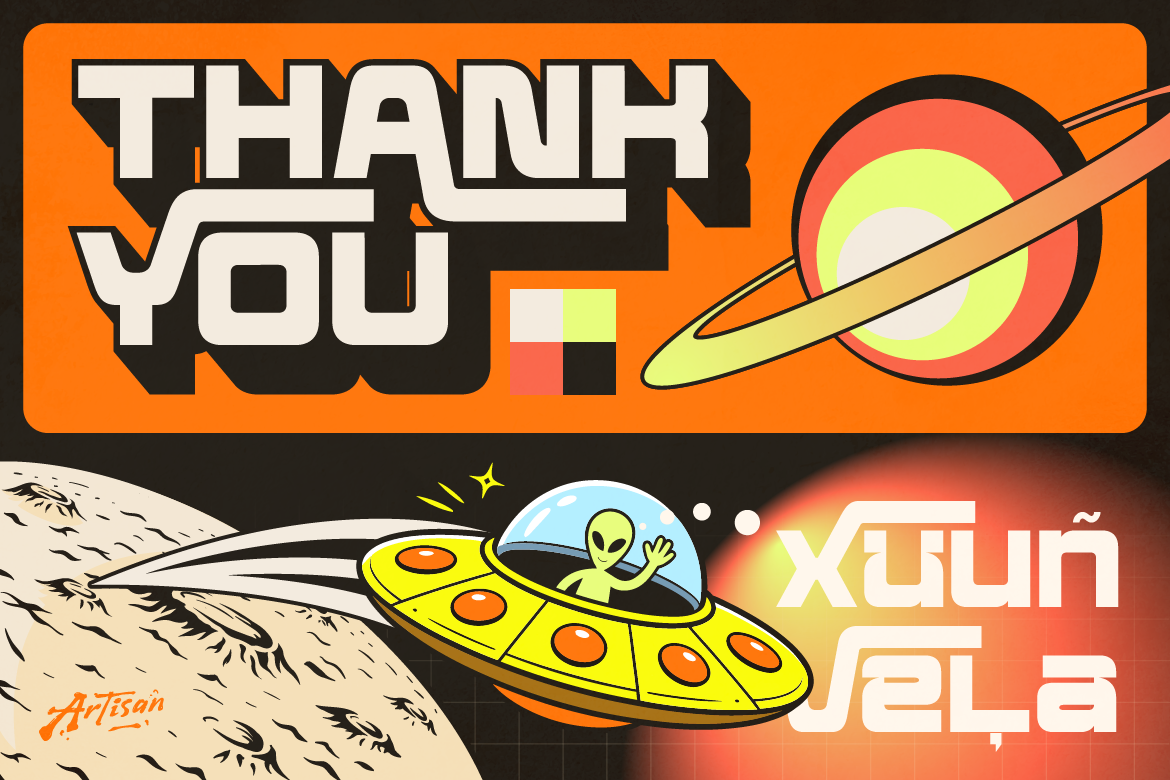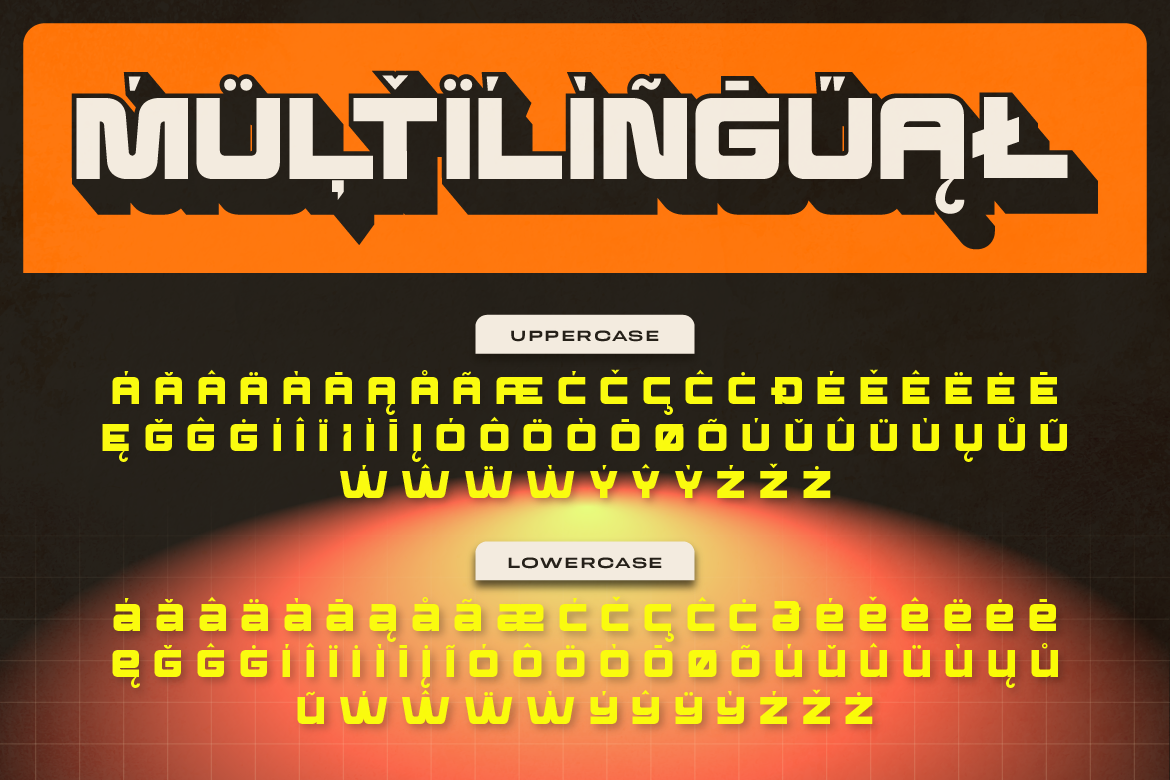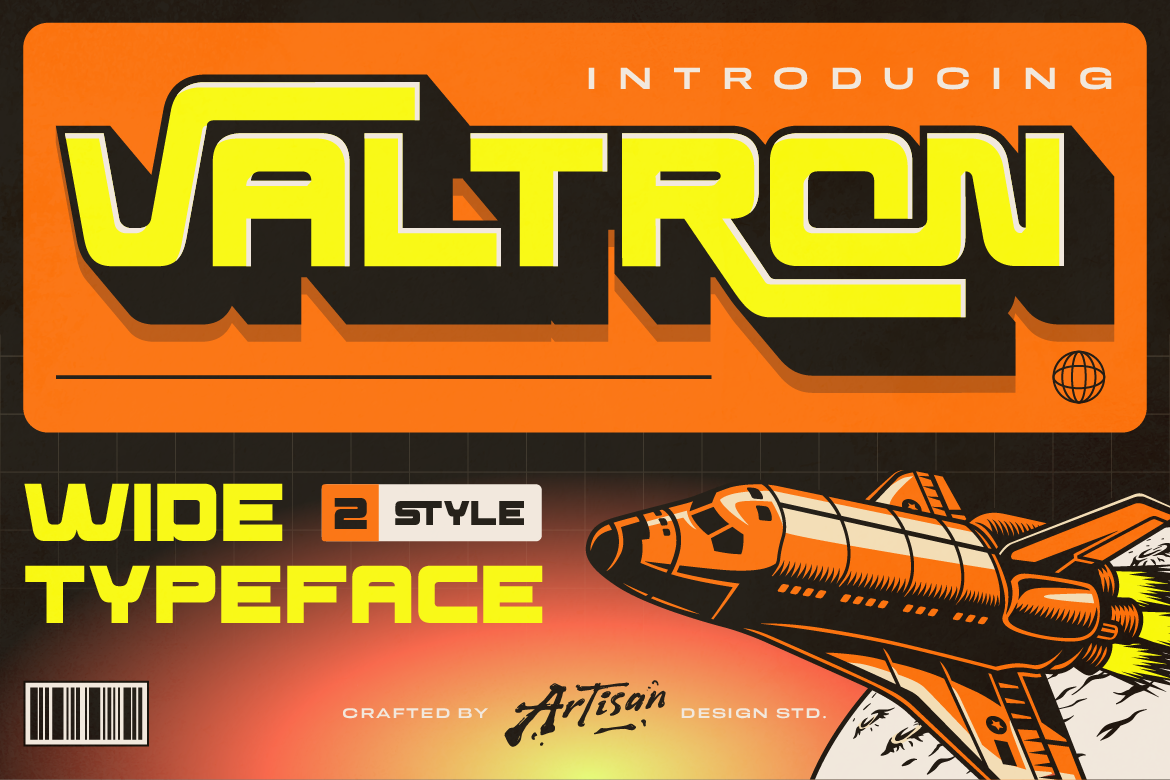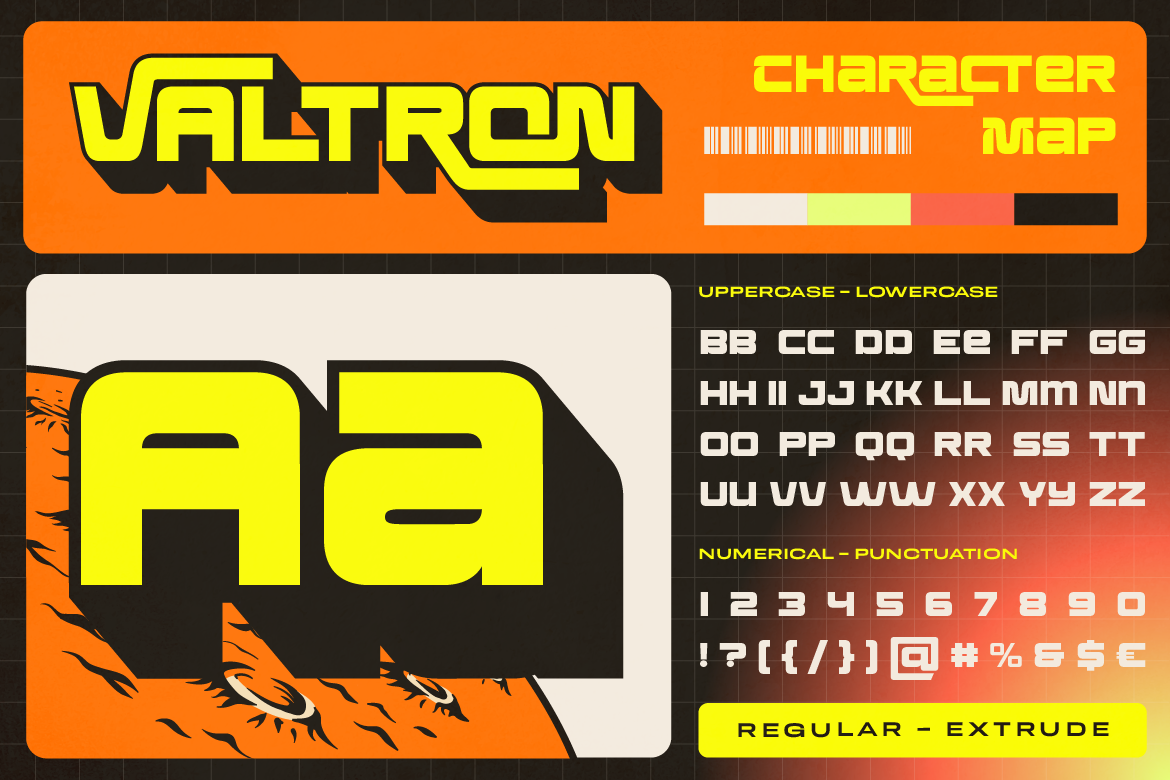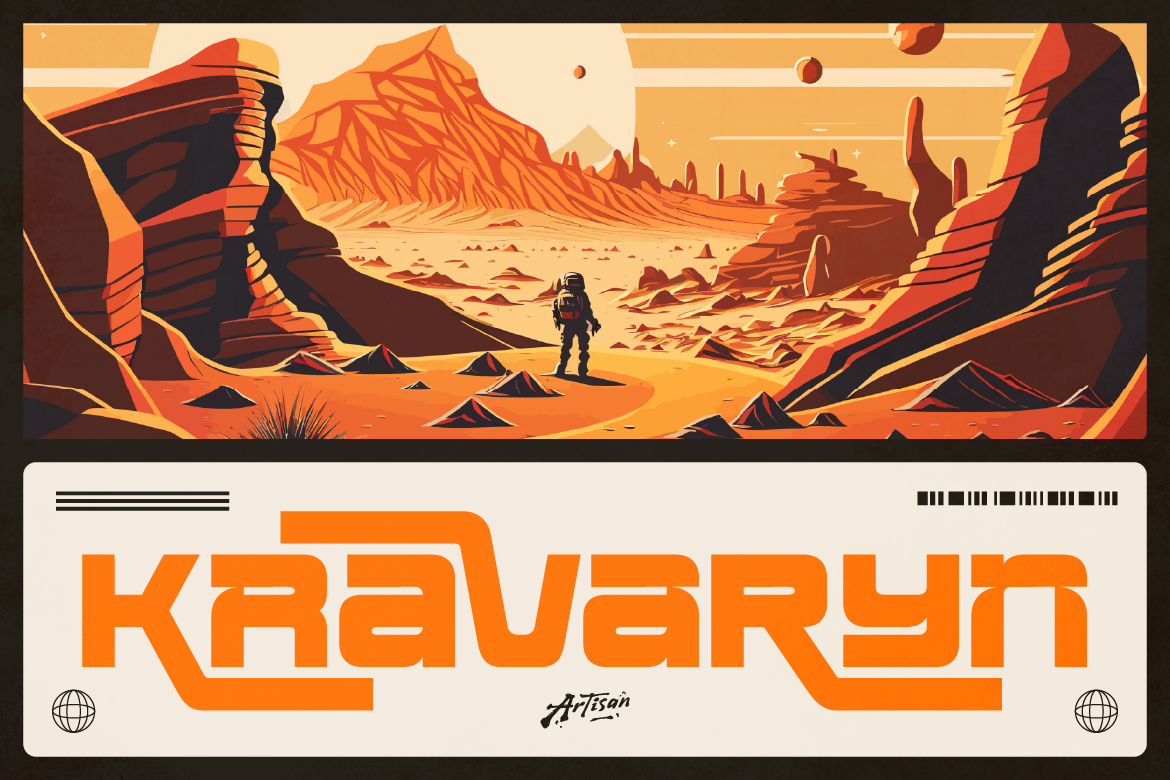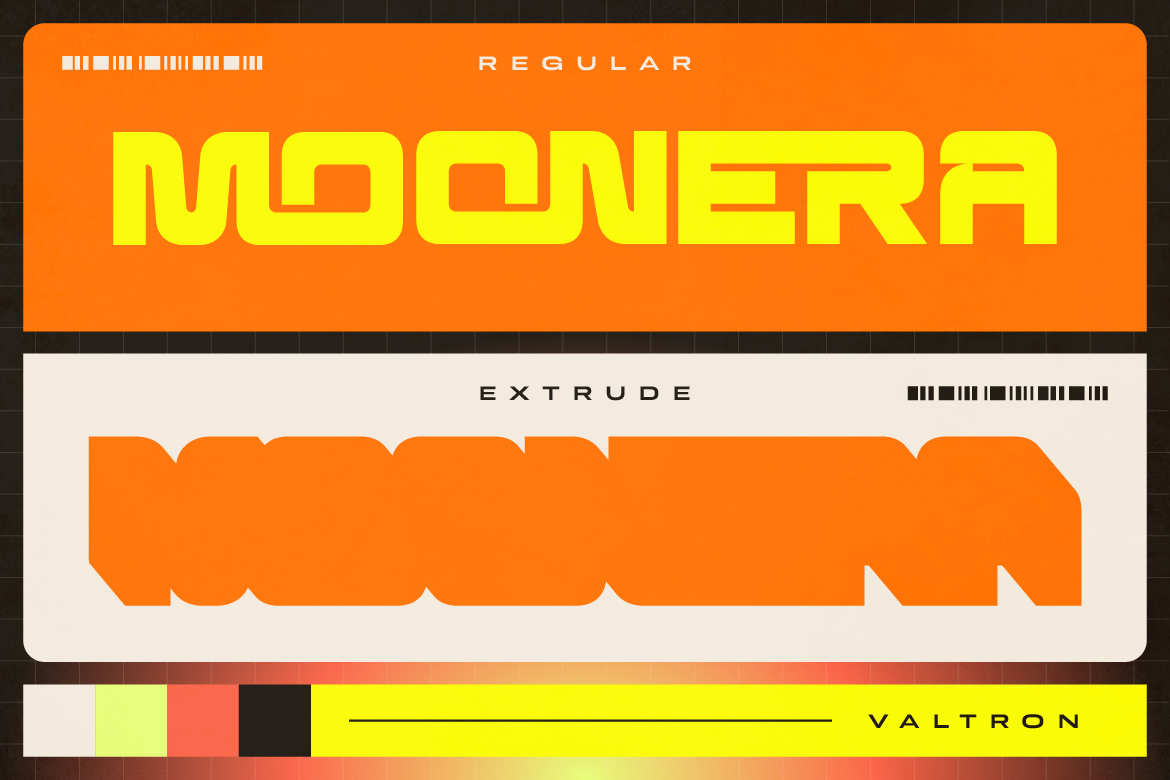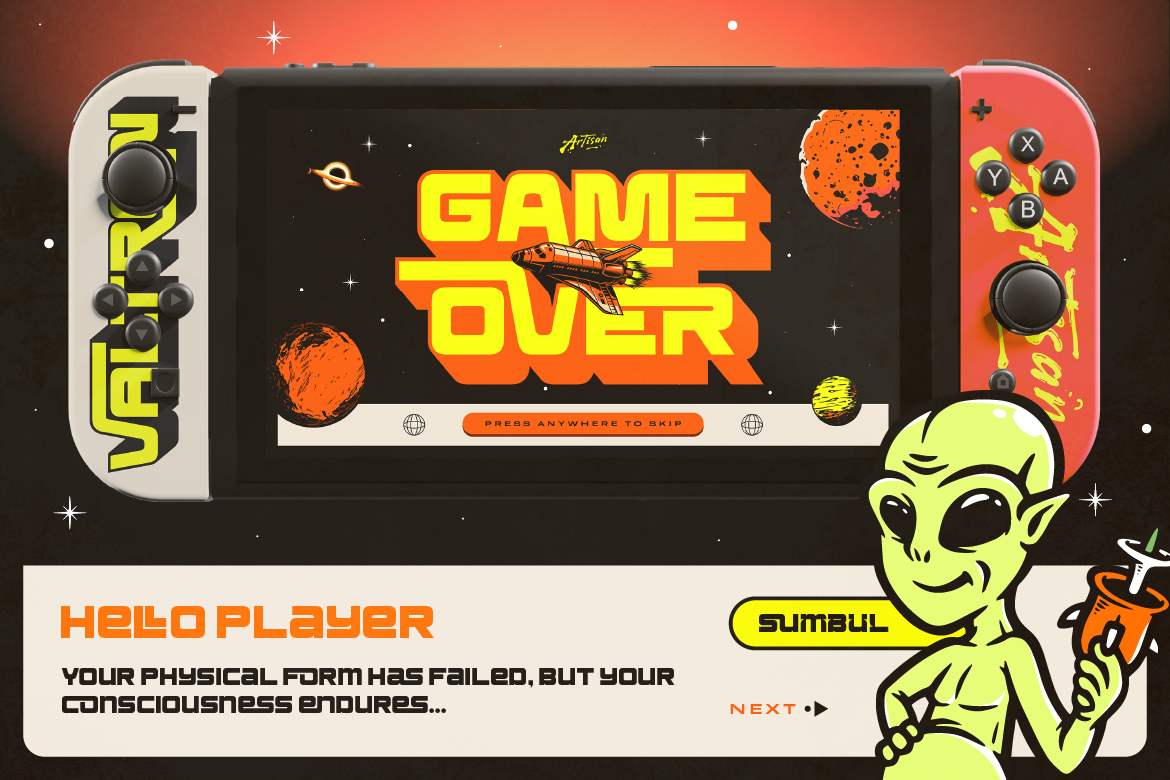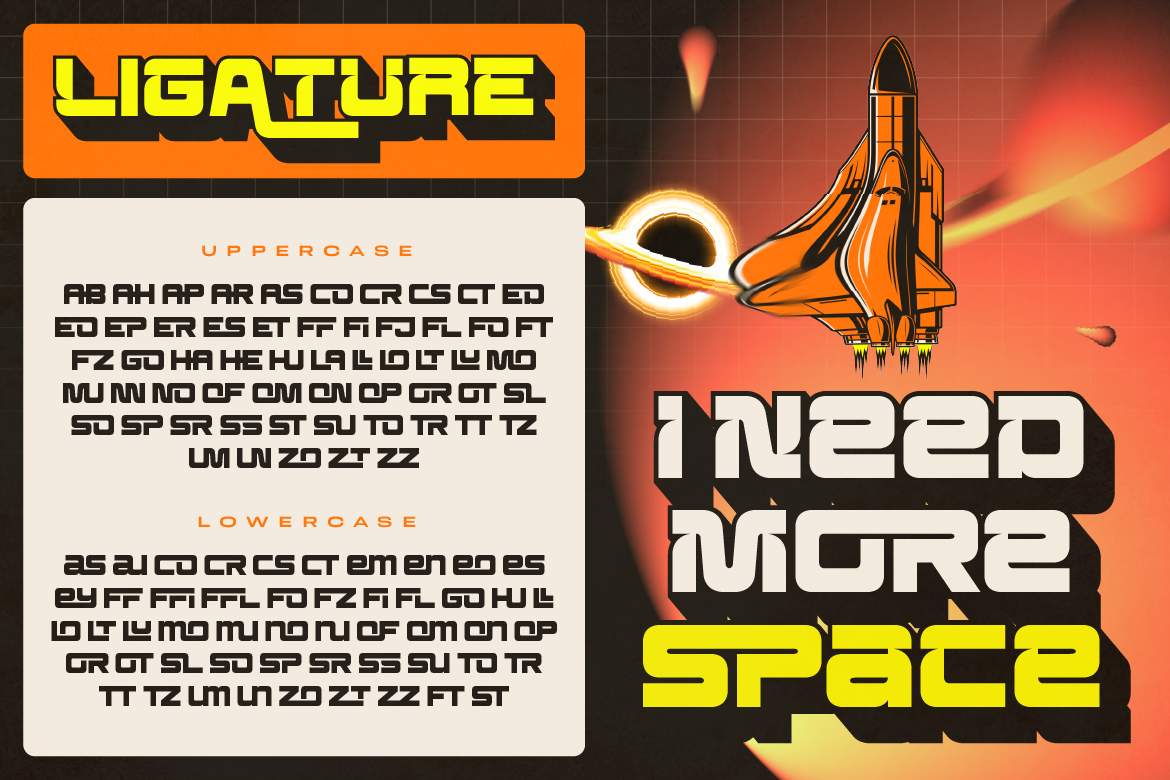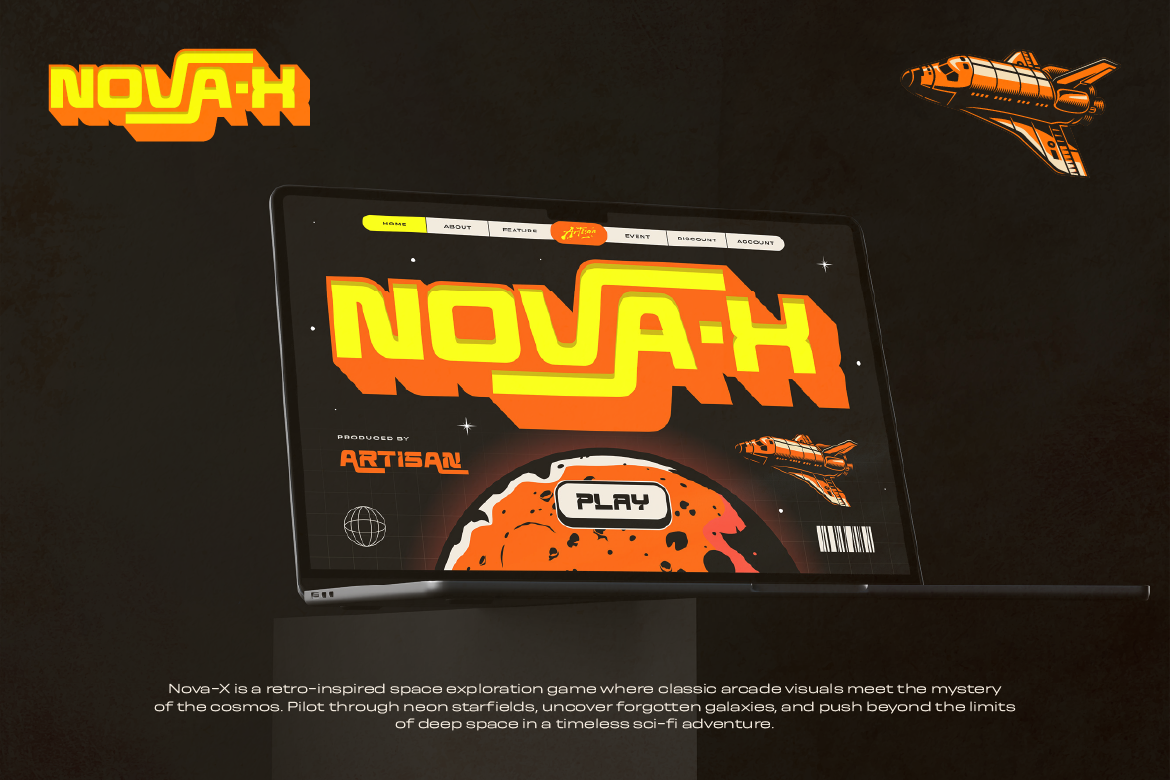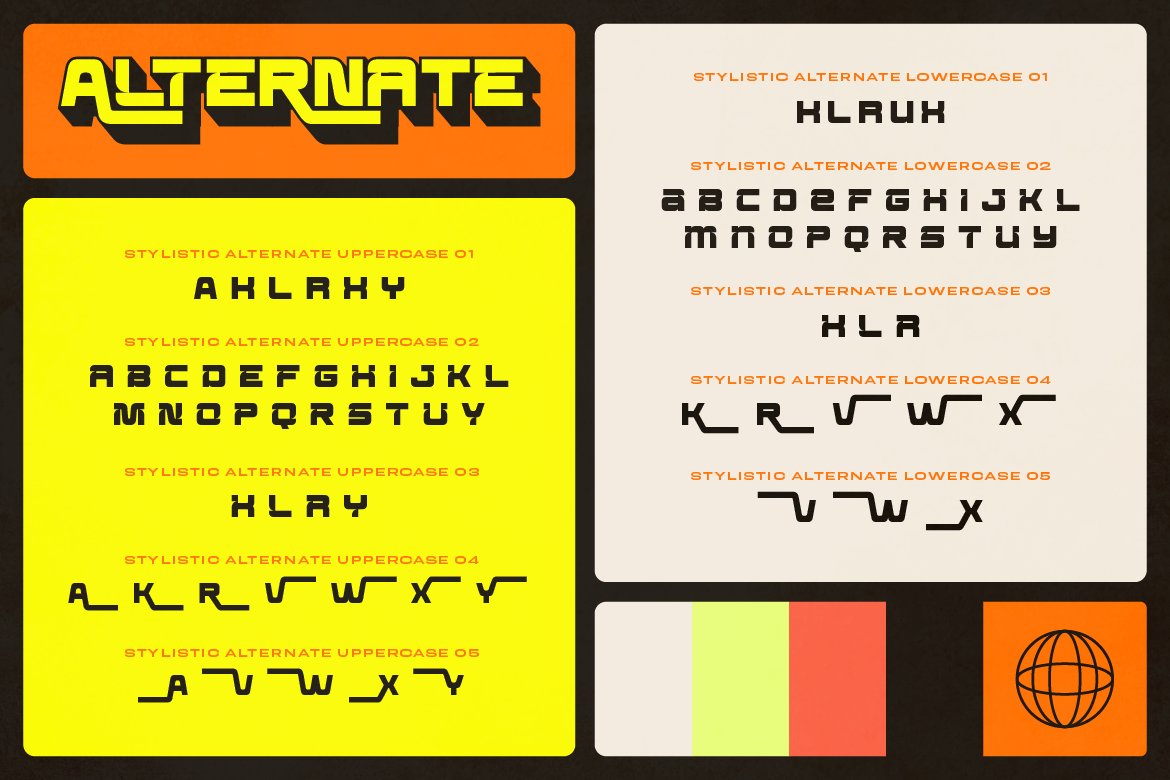
Valtron
Regular
Extrude
Description
Valtron is a bold wide typeface inspired by retro-futuristic sci-fi visuals and space exploration aesthetics. With its strong geometric shapes, wide proportions, and sharp cuts, Valtron instantly delivers a powerful, futuristic vibe.
This font comes with 2 styles: Regular and Extrude, allowing you to create depth, dimension, and eye-catching typography. It also includes ligatures and stylistic alternates, giving you more flexibility to customize your lettering and create unique logotypes or headlines.
Valtron works best for sci-fi branding, futuristic logos, posters, game titles, space-themed designs, album covers, apparel, and bold display typography. Whether you want something loud, modern, or cosmic, Valtron is built to stand out.
Perfect for:
• Futuristic & sci-fi branding
• Logo design & logotype
• Game titles & esports graphics
• Posters & bold headlines
• Tech & cyber-themed projects
• Apparel & streetwear design
• Album covers & digital artwork
• Space-themed visuals
• A – Z set (Uppercase & Lowercase)
• Number
• Punctuation
• Alternates
• Ligatures
• Multilingual
• Valtron Characters Map